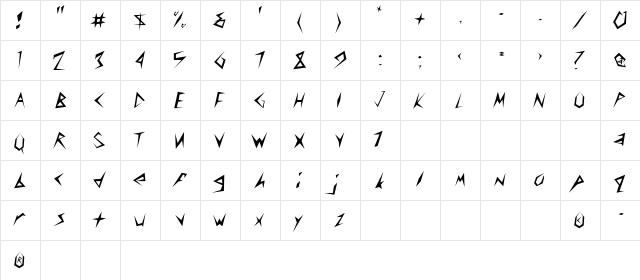
CuneiFont Regular
Design Context for CuneiFont Typeface
CuneiFont is a composed and adaptable typeface that performs quietly and consistently across a wide range of design contexts.